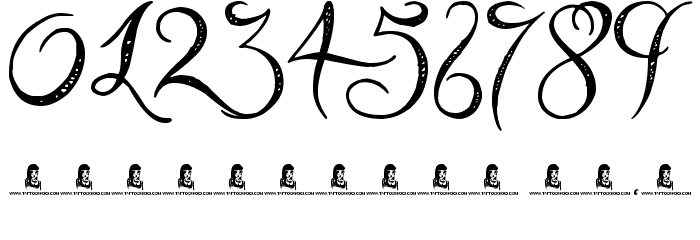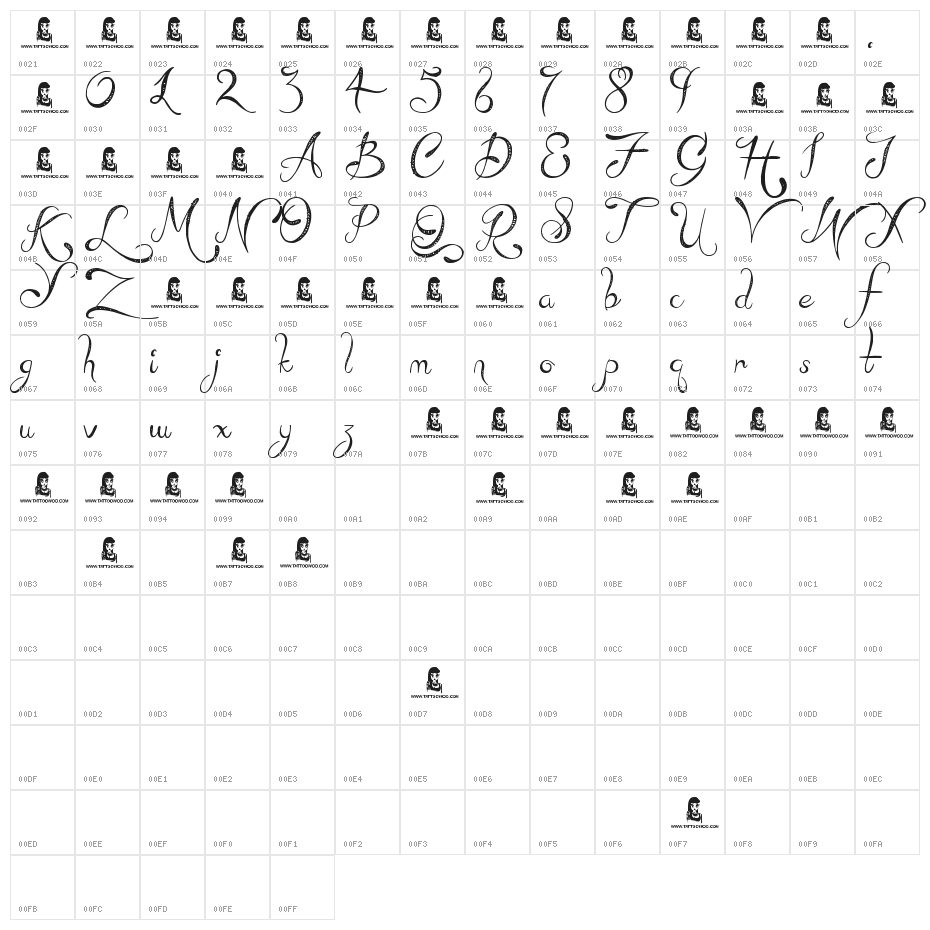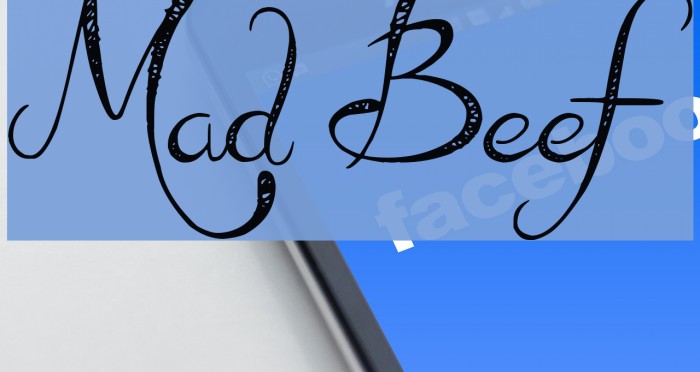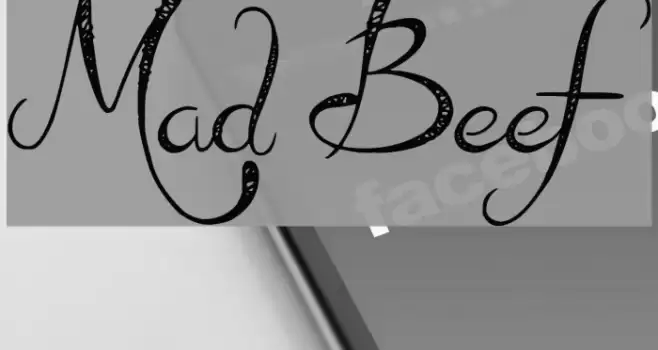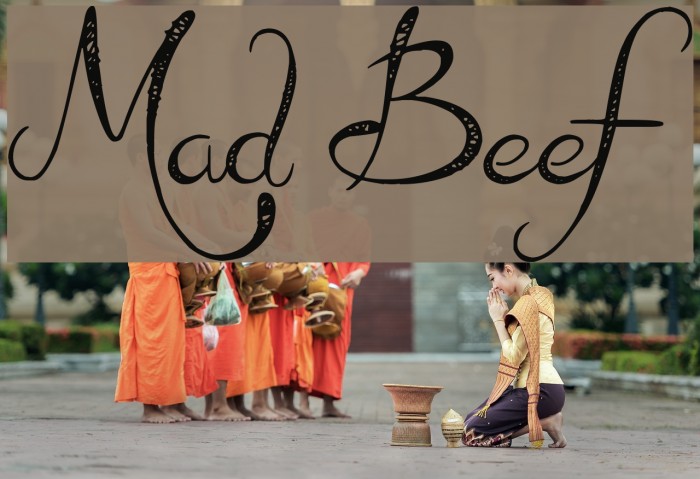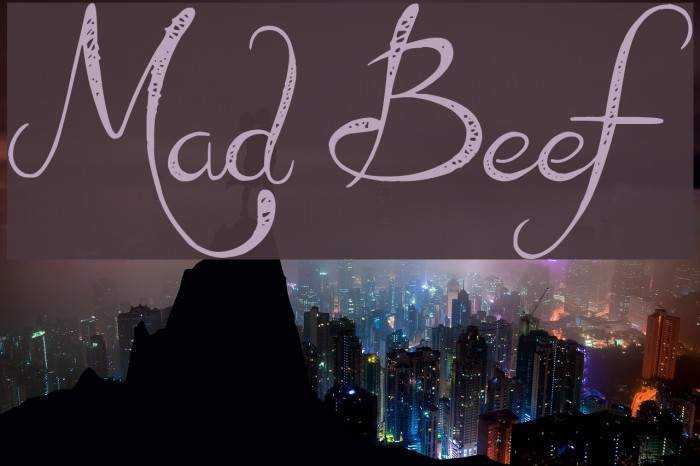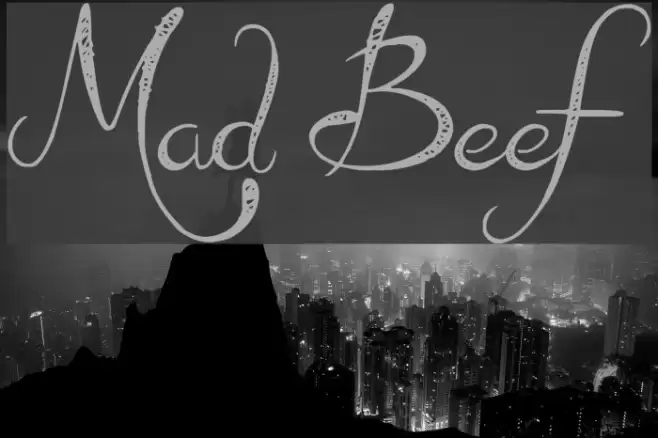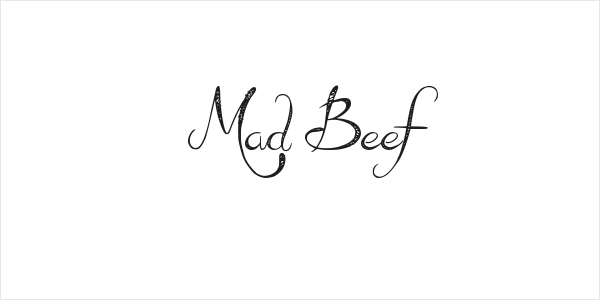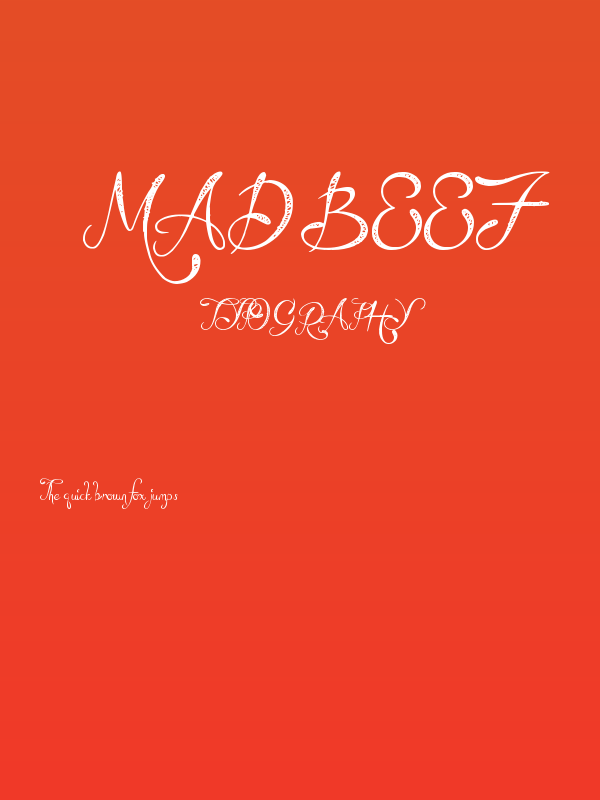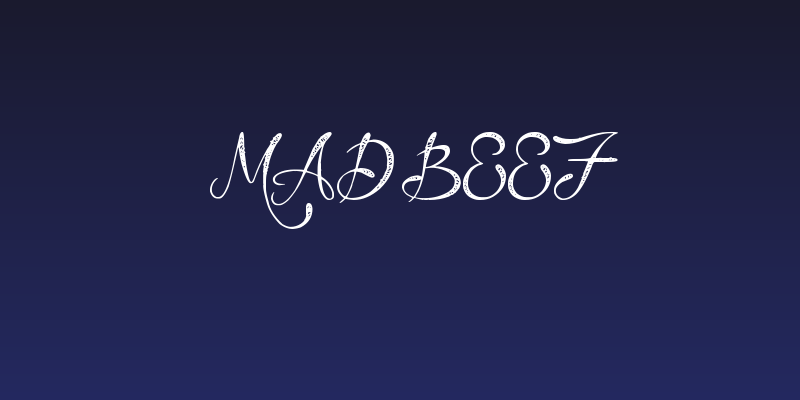
Mad Beef Font
Mad Beef Description
This font features an elegant and artistic script style with intricate swirls and flourishes. The uppercase letters are particularly ornate, with extended loops and decorative elements that give each character a unique flair. The lowercase letters maintain a consistent flow, complementing the uppercase with a slightly more restrained design. Numbers and special characters follow the same decorative theme, ensuring a cohesive look across all elements. The overall design is reminiscent of calligraphy, with a modern twist that adds a touch of sophistication and creativity. The font's detailed strokes and embellishments make it ideal for projects that require a touch of elegance and artistic expression.